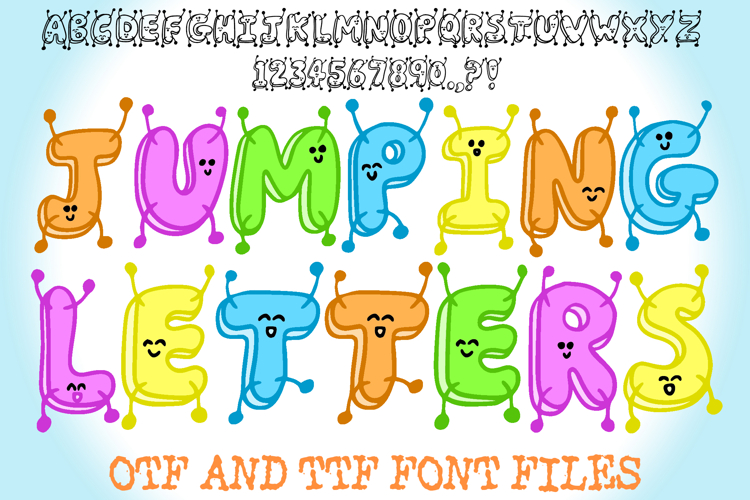
Jumping Letters Cartoon Characters Lettering ABC Font Type
Jumping Letters Cartoon Characters Font is a fun, playful, and energetic display typeface packed with personality! Each letter bounces with life, featuring adorable cartoon faces, antennae, and quirky charm. Perfect for children’s designs, school projects, comic titles, posters, birthday invitations, logos, and any creative project that needs a happy, friendly vibe. This bold and animated font captures a sense of joy and imagination, making your words come alive!
Whether you’re designing for kids’ books, classroom materials, YouTube thumbnails, or playful branding, Jumping Letters Cartoon Characters Font adds a fun and whimsical touch. Let your text jump off the page with this cute, funny, and expressive cartoon font!